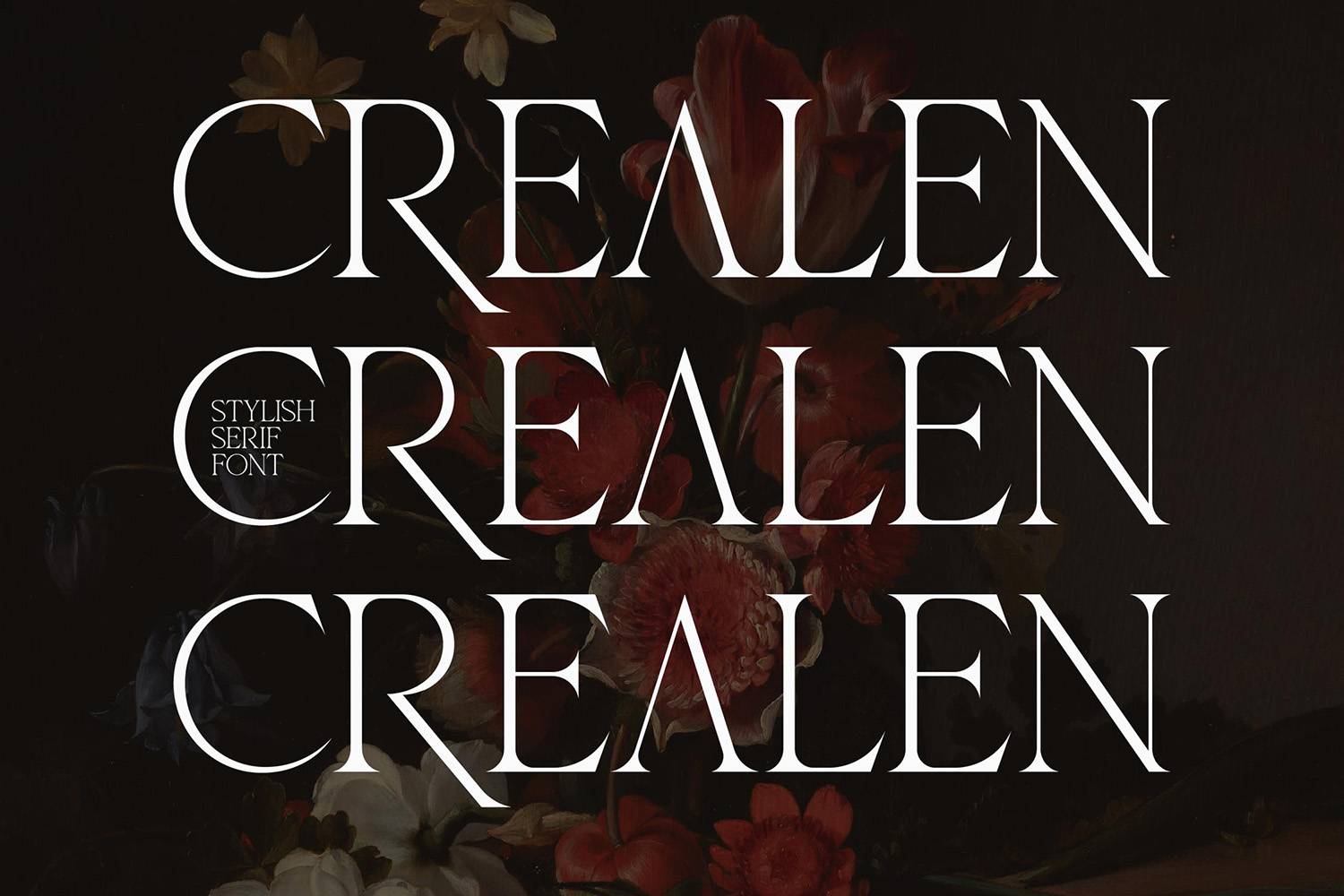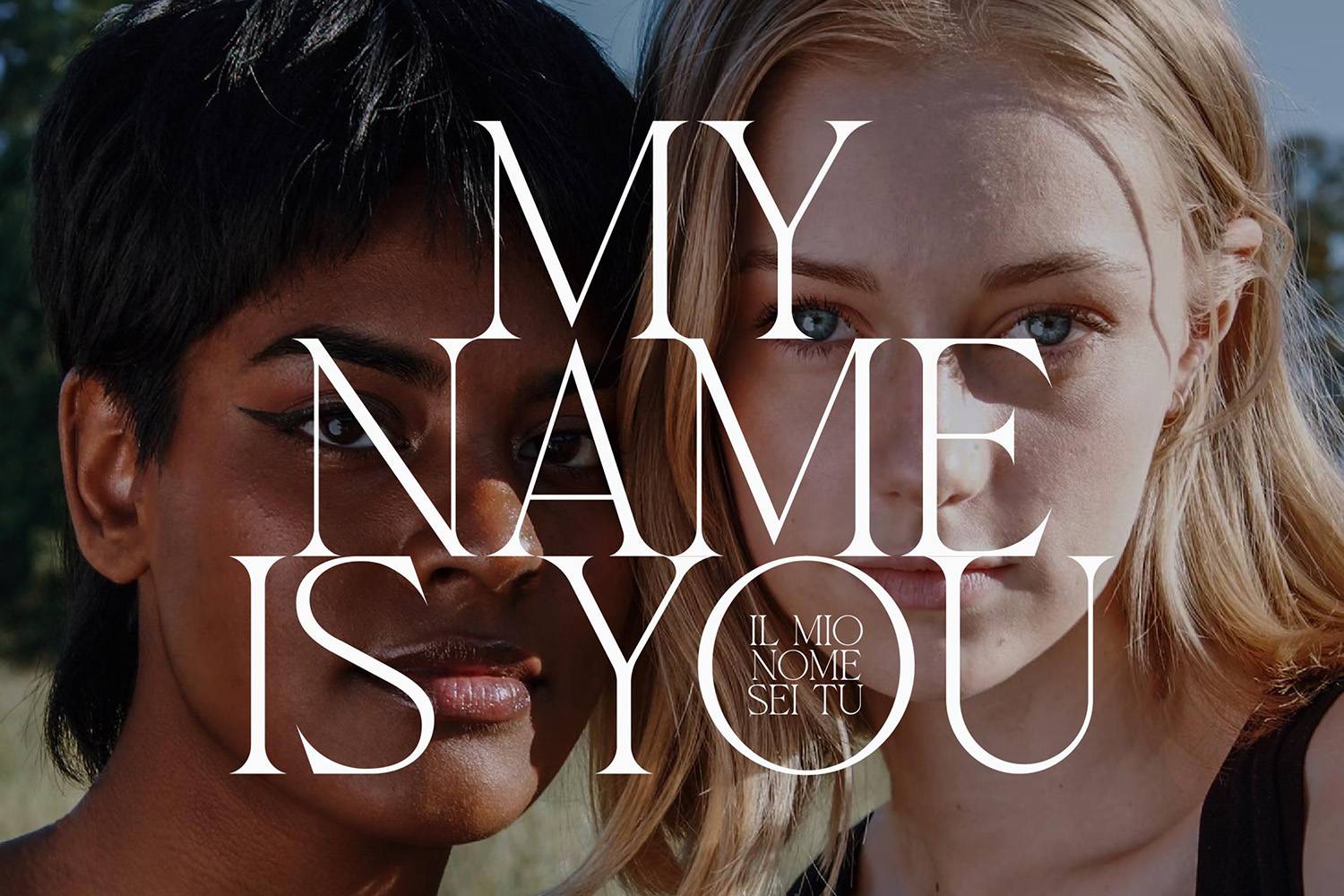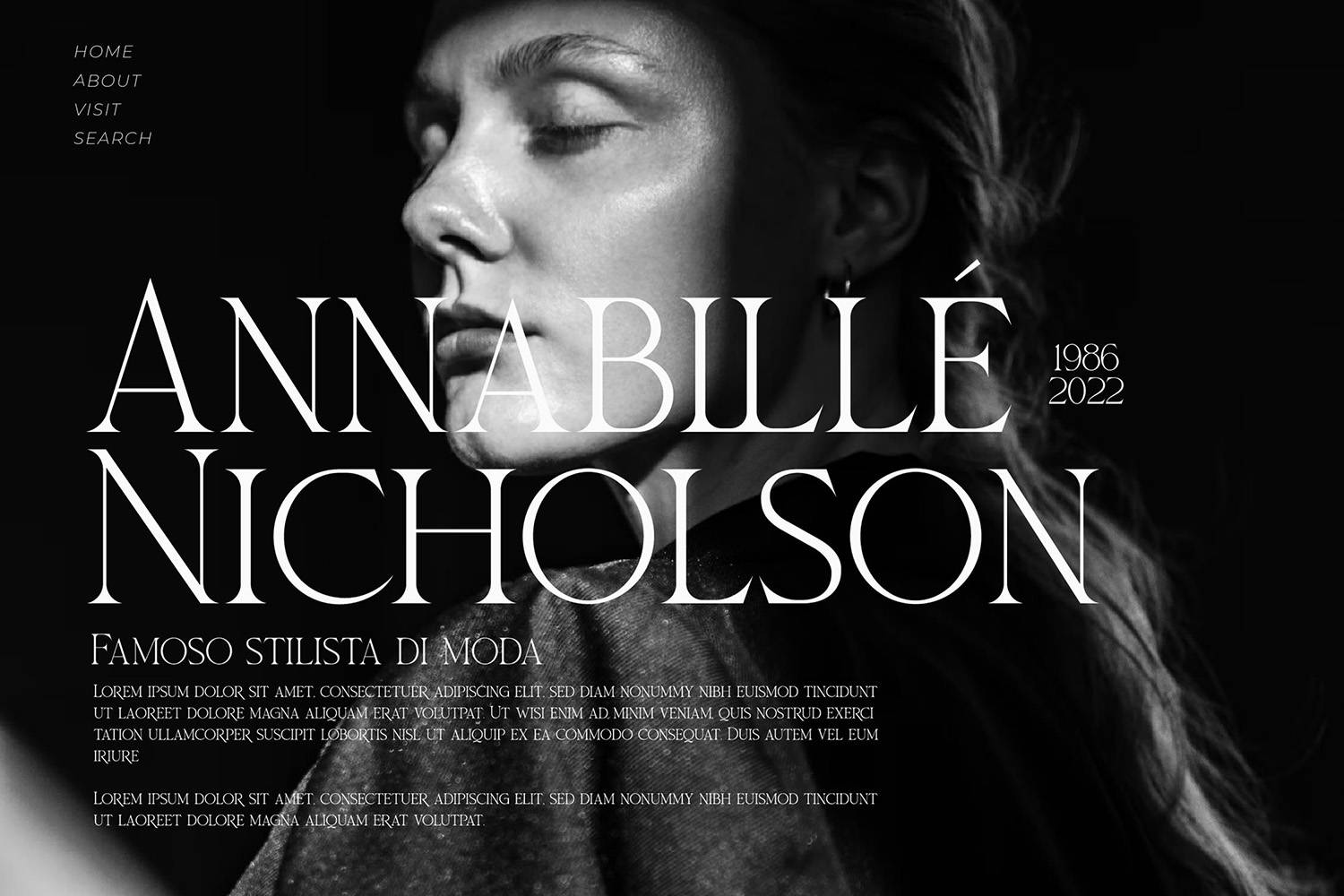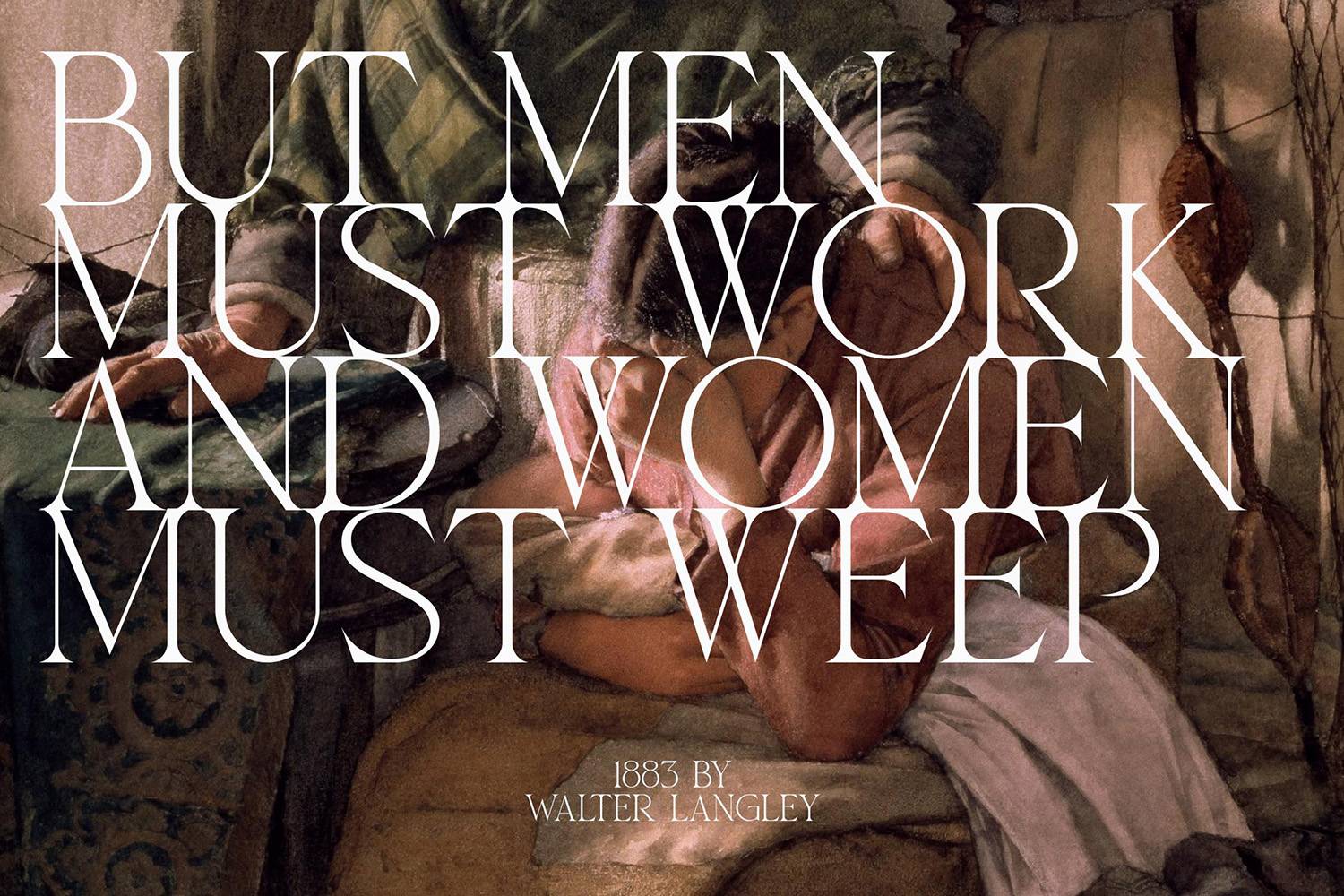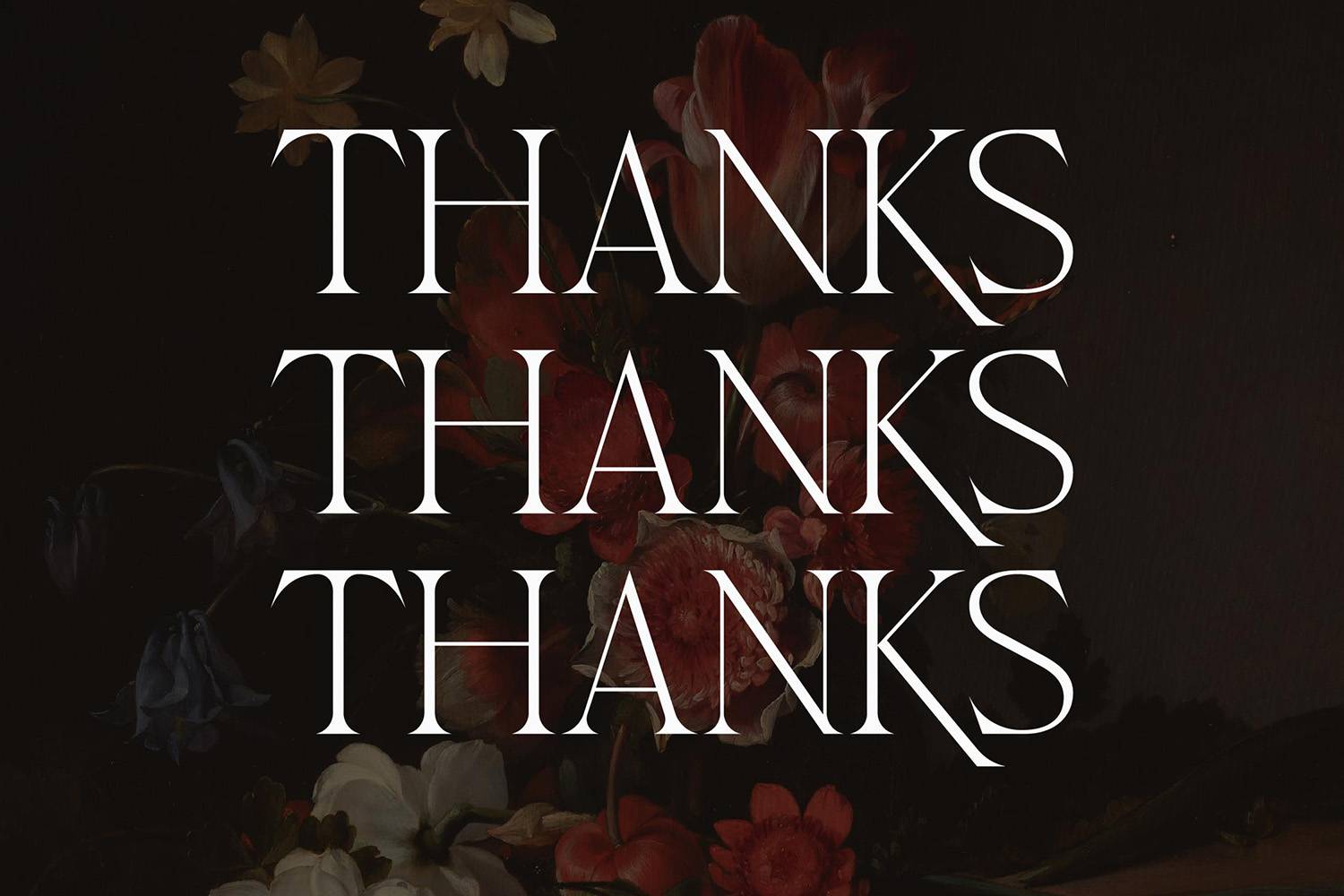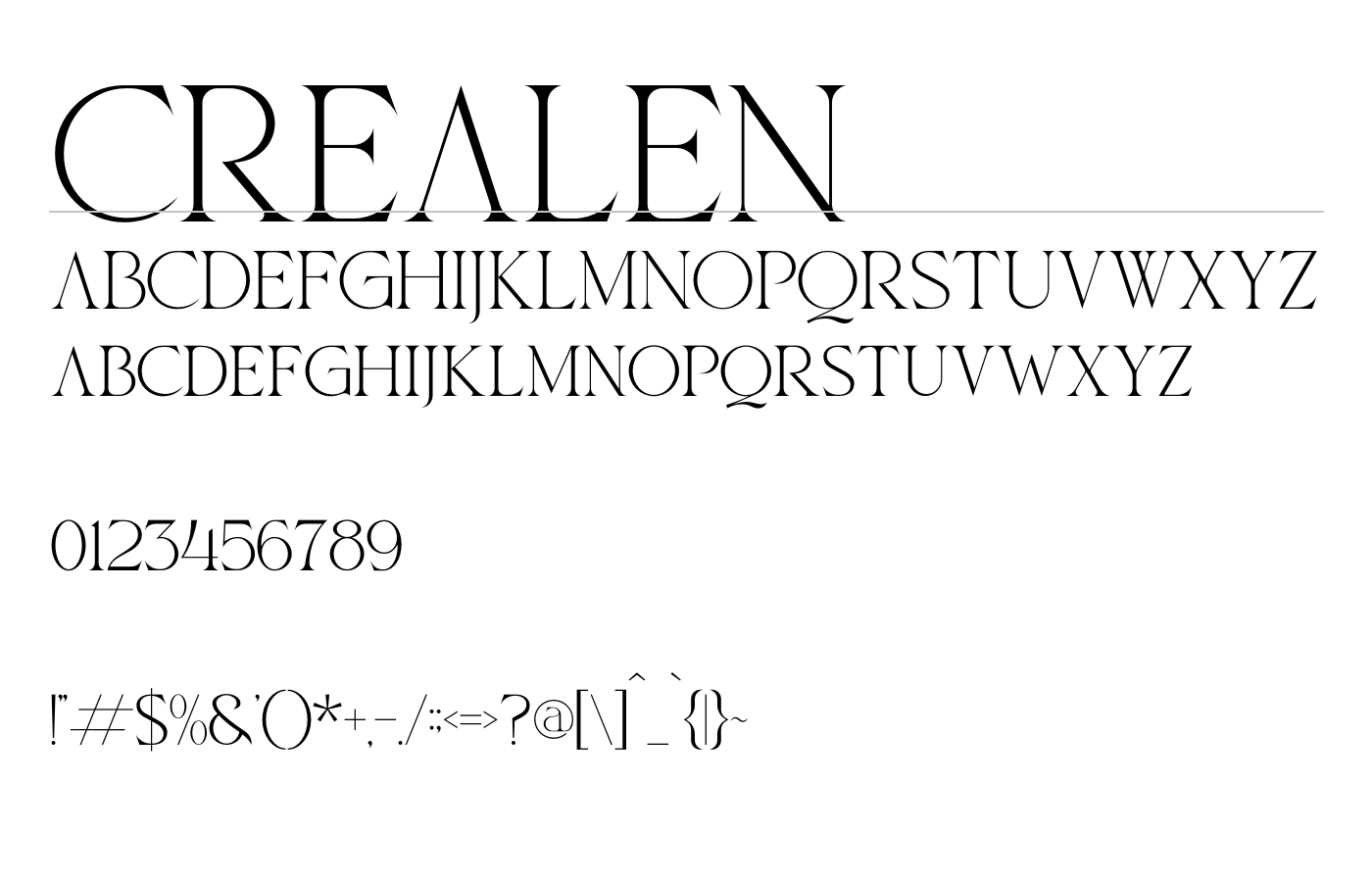
Crealen is a sophisticated serif font with a modern Didone style, characterized by high contrast between thick and thin strokes and elegant, sharp serifs. Its tall, narrow letterforms with refined details and unique shapes give it a luxurious and artistic feel, making it perfect for fashion branding, editorial headlines, and upscale packaging. This font excels at creating a stylish, high-end impression wherever elegance and refinement are desired.
Crealen Font
About Crealen Font